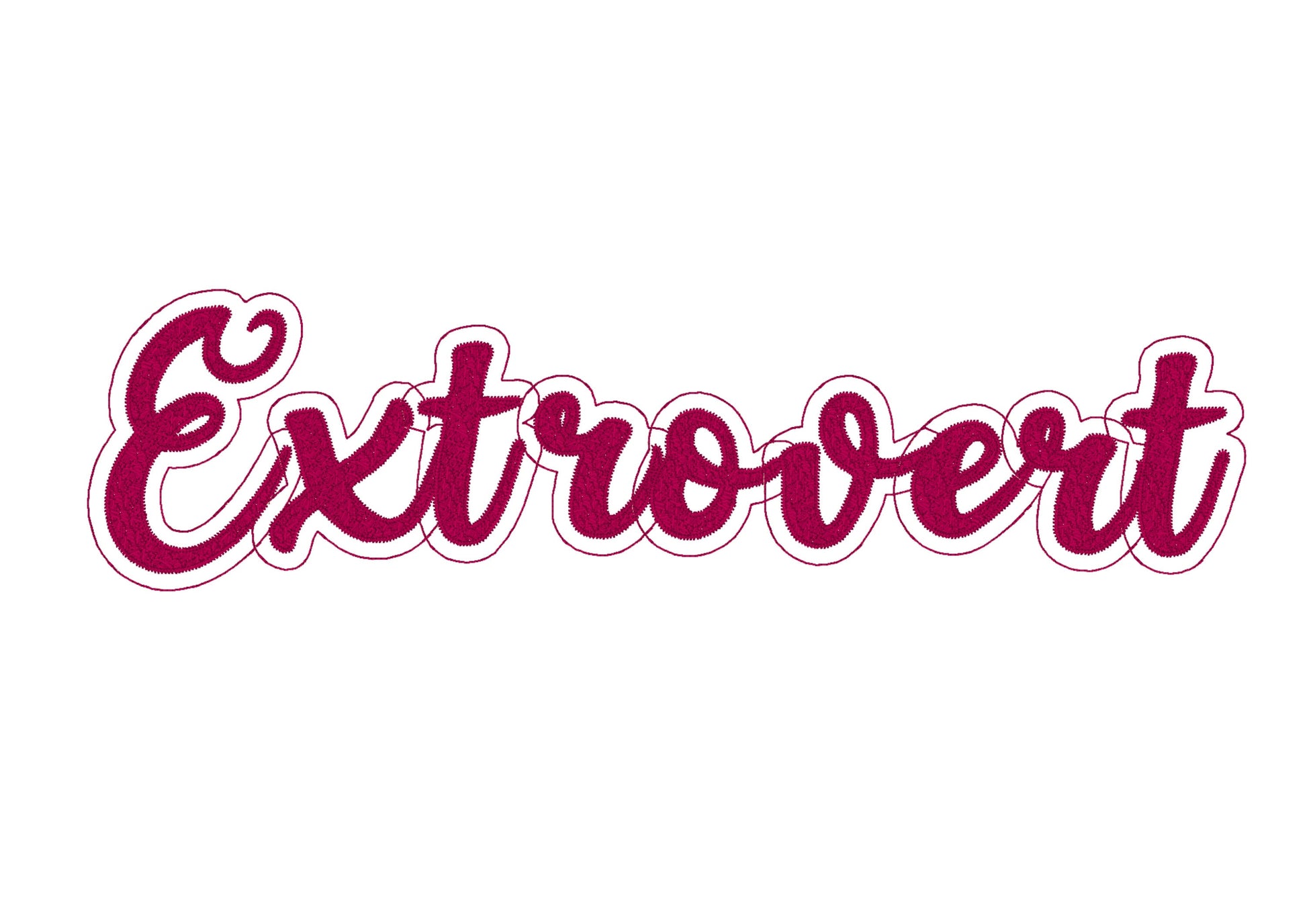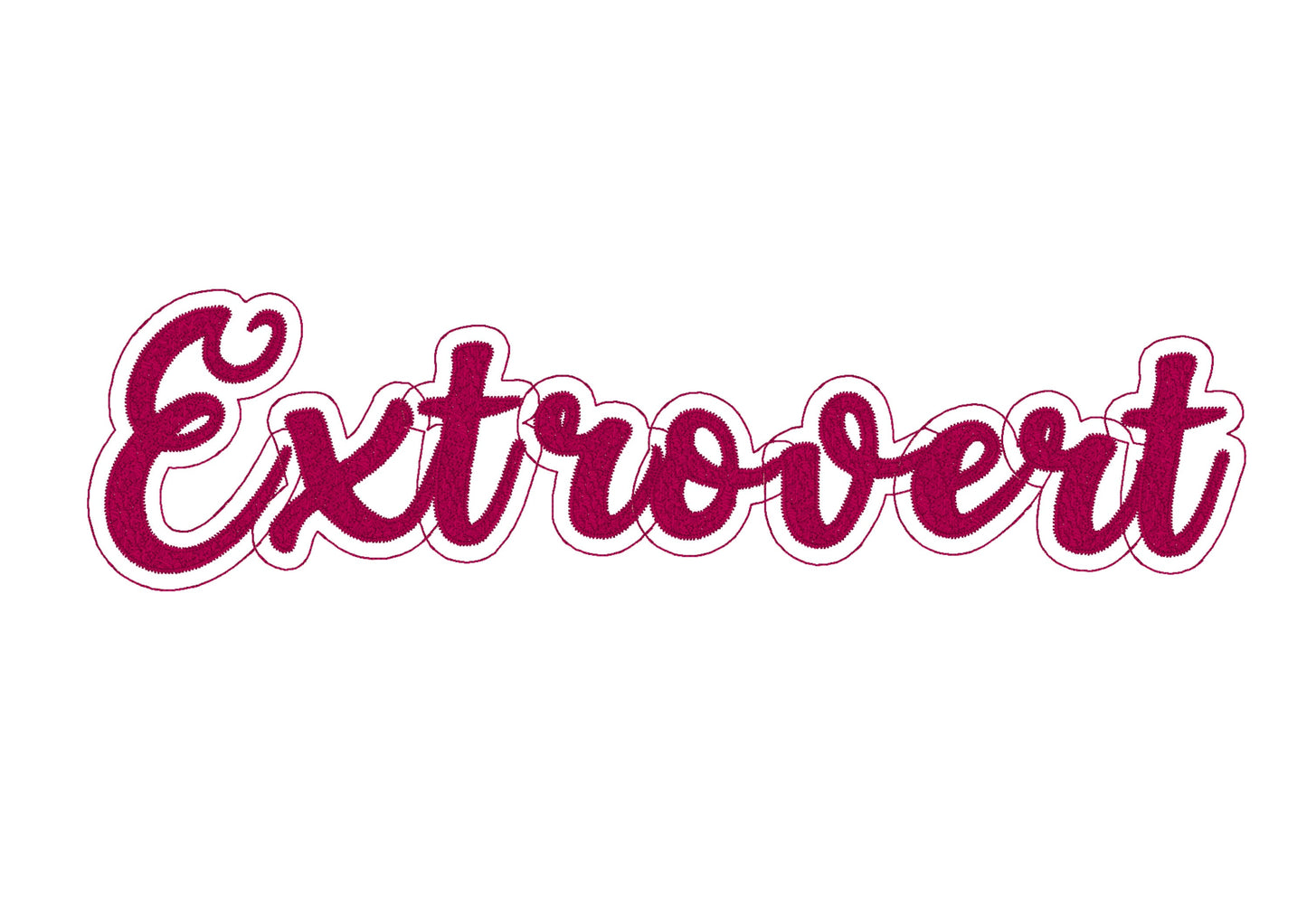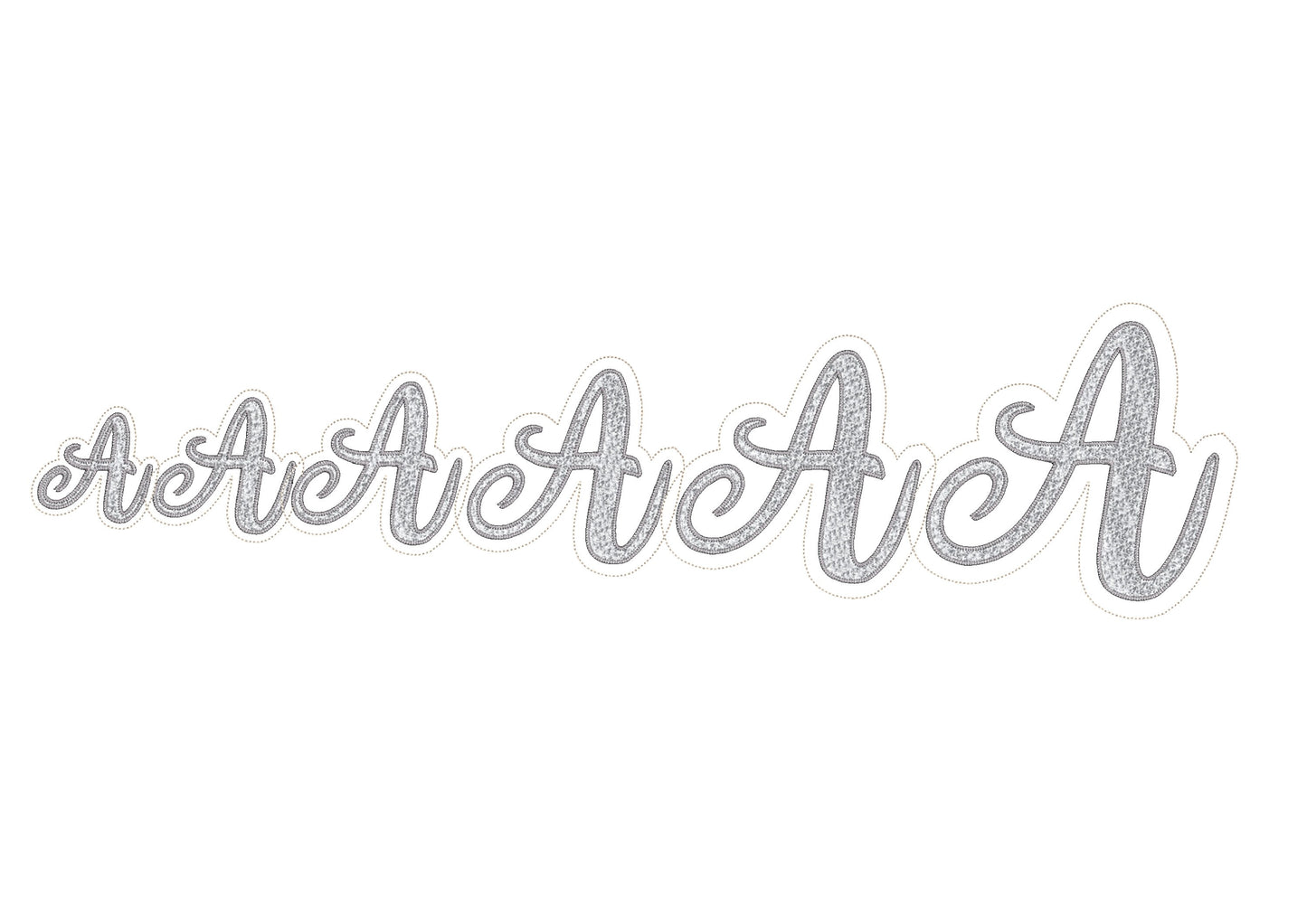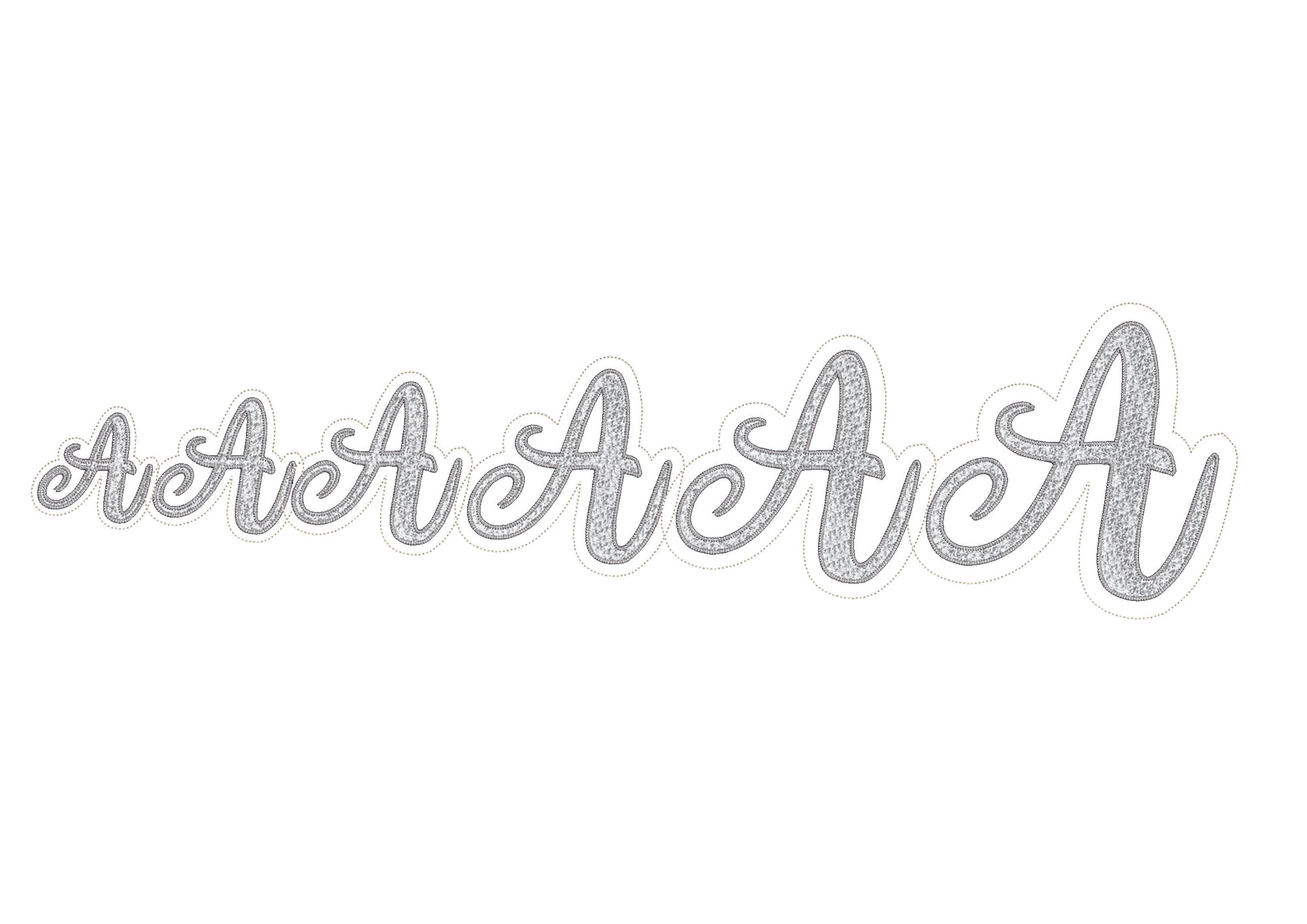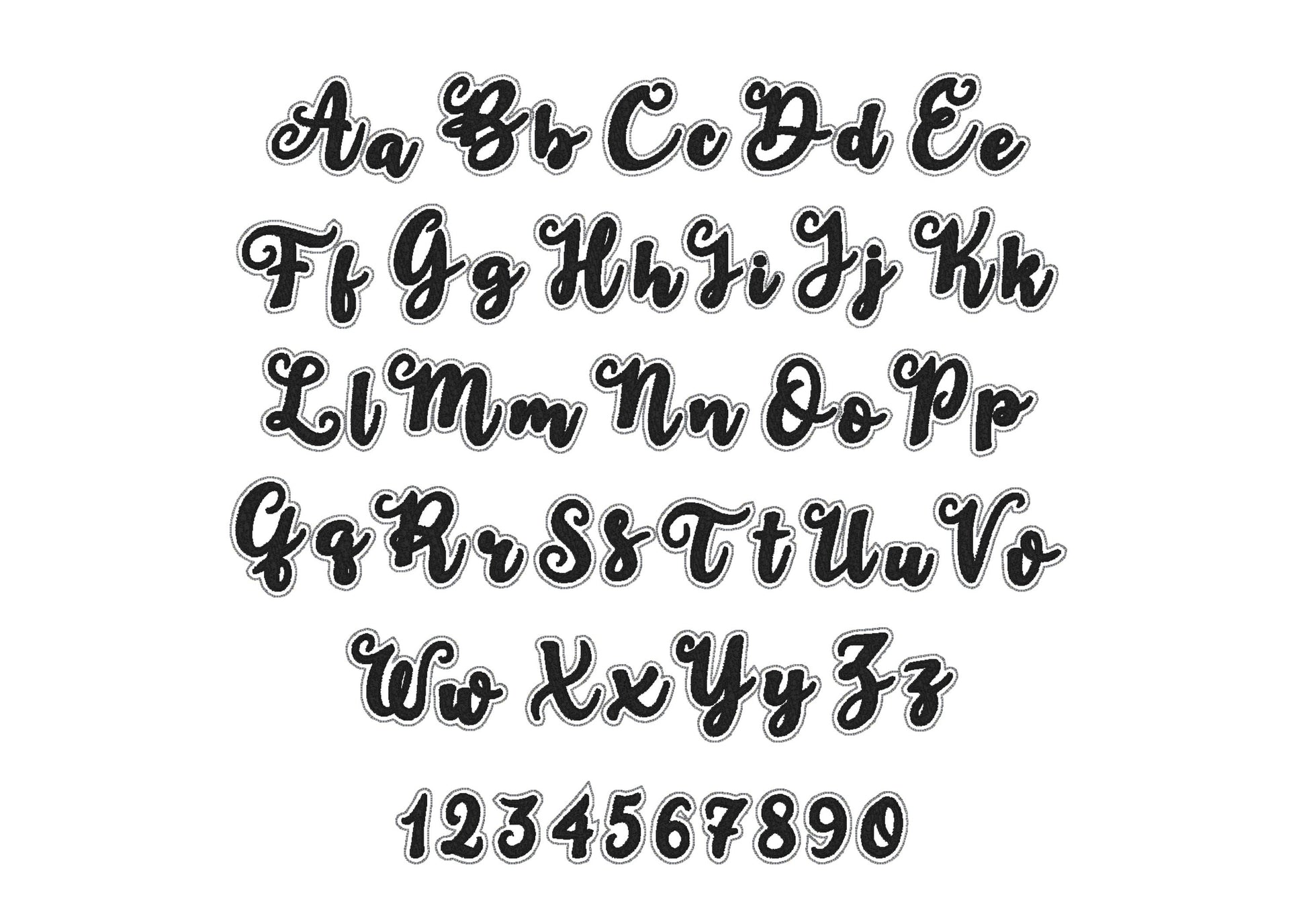
Or click to open the linkA faux chenille font made to be stitched with glitter heat transfer vinyl or glitter faux leather in two layers. Sparkly for sweatshirts, bags, pillows and names, with a smile add-on.
Uppercase and lowercase letters and numbers 0 to 9 in six sizes: 2.5, 3, 3.7, 4.5, 5.3 and 6.4 inches. A smile add-on comes in 3, 3.5, 4 and 4.5 inches. Joined script letters overlap slightly, which hides under the glitter when the thread matches its shade.